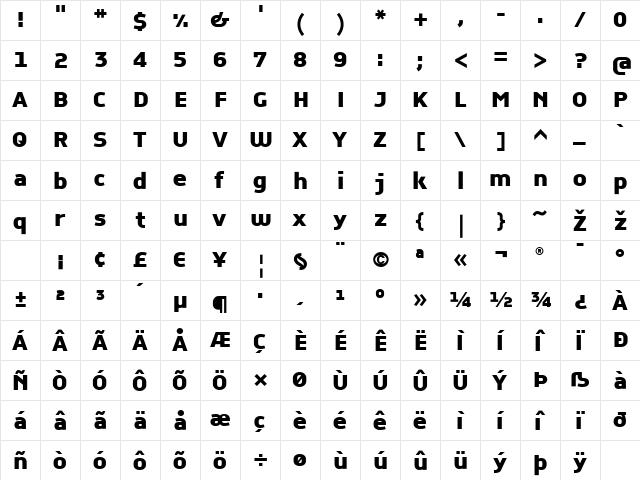
CPCompany Regular
| Foundry | Fabrizio Schiavi Design -http://www.fsd.it/ - Customized for C.P. Company \(italian brand wear\) |
Design Context for CPCompany Typeface
CPCompany offers clean, dependable letterforms without strong stylistic allegiance, making it a practical choice for designers who need flexibility.